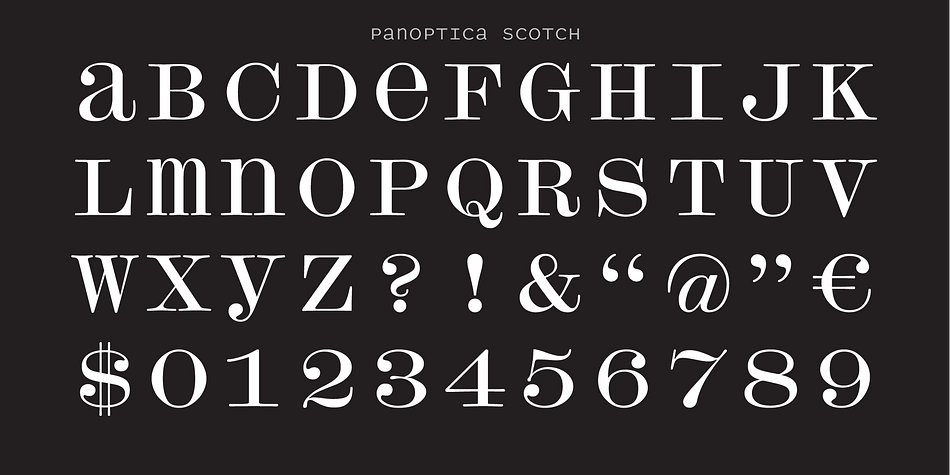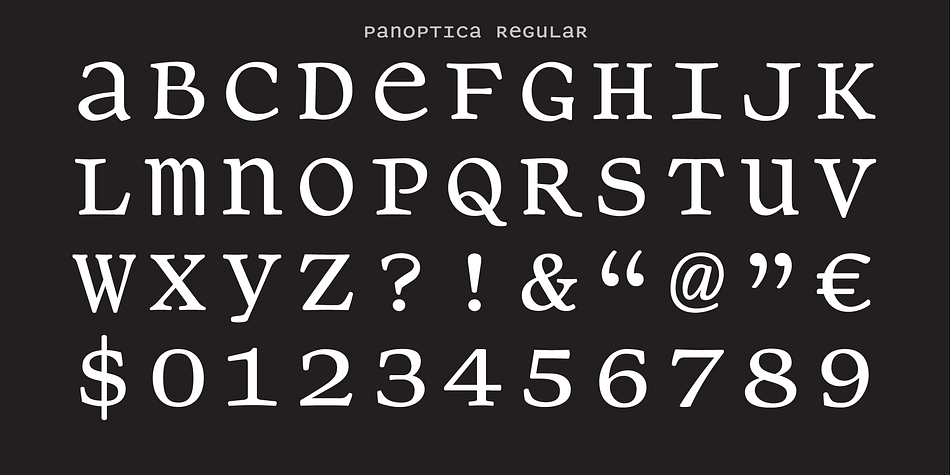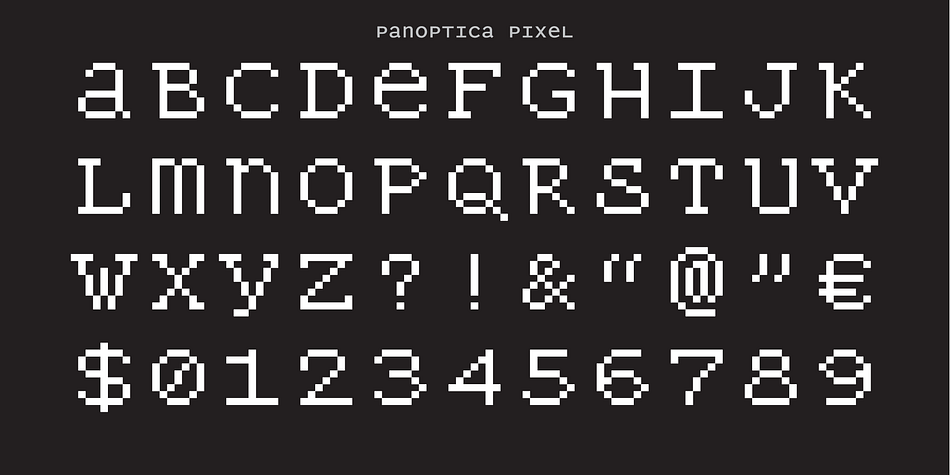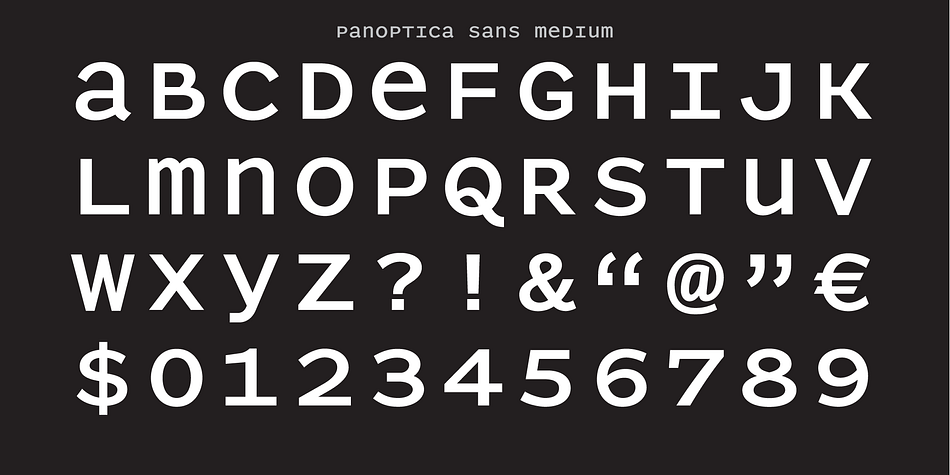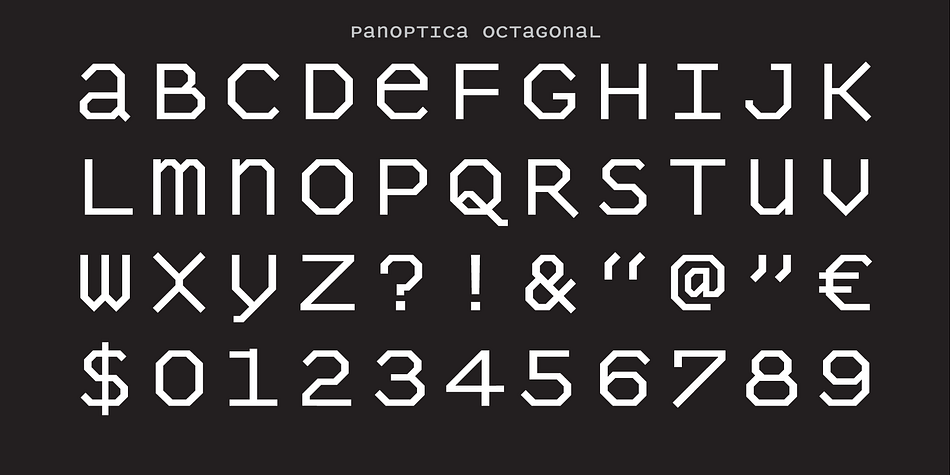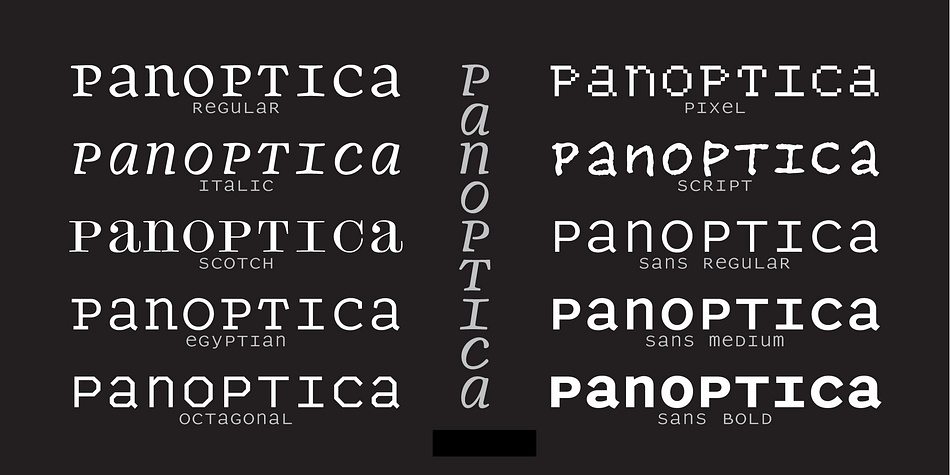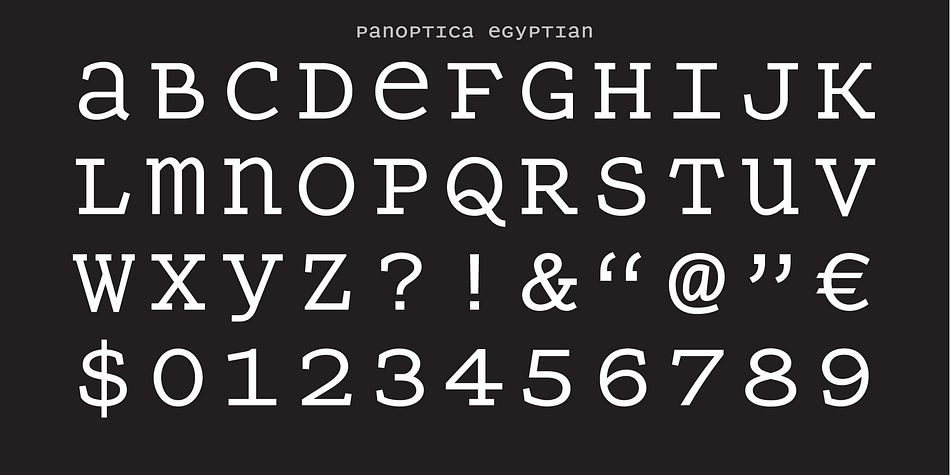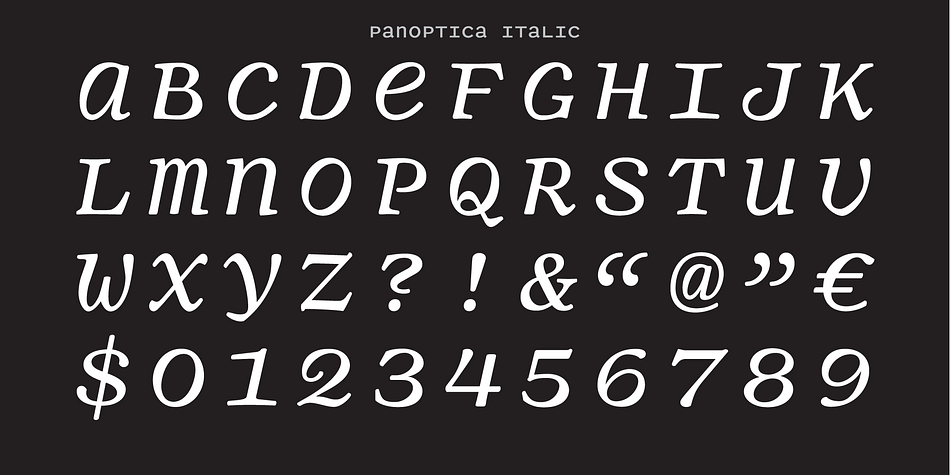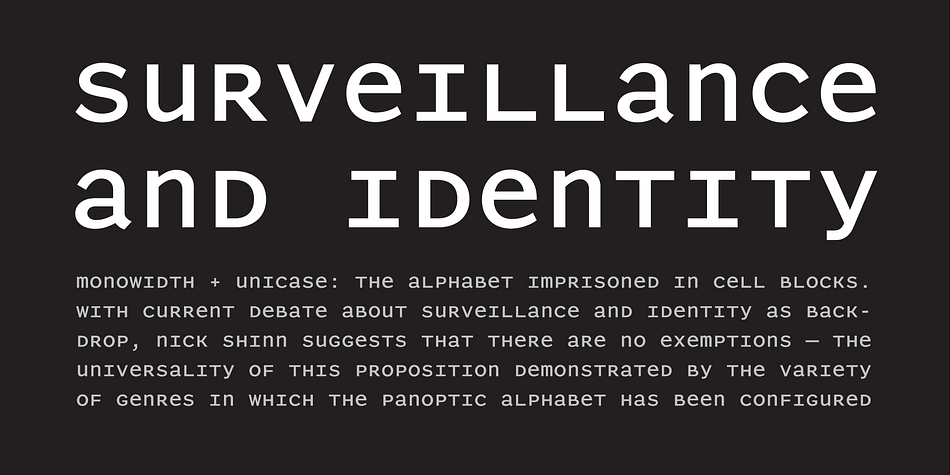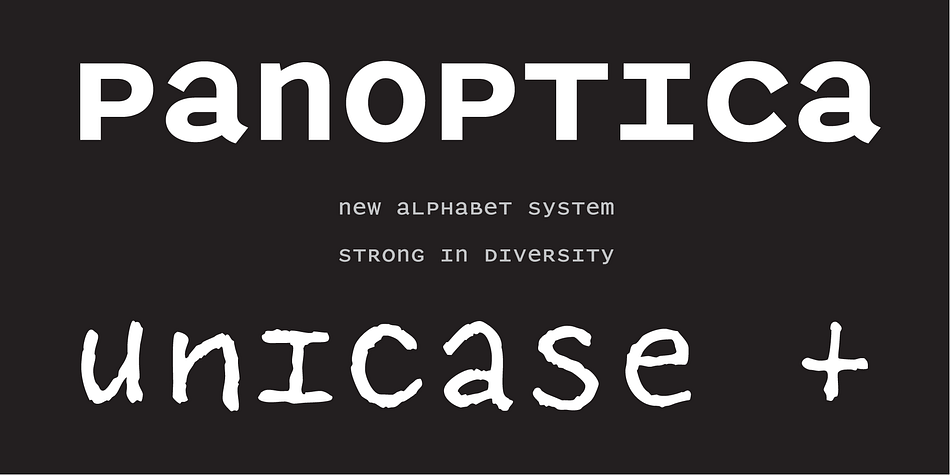
PANOPTICA
Designed by Nick Shinn, Panoptica is a multiple classification font family. This typeface has ten styles and was published by Shinntype.
Monowidth, unicase: the alphabet imprisoned in cell blocks. With current concern over surveillance and identity as backdrop, Shinn suggests that there are no exemptions, the universality of this proposition indicated by the diversity of genres to which the Panoptic effect has been applied.